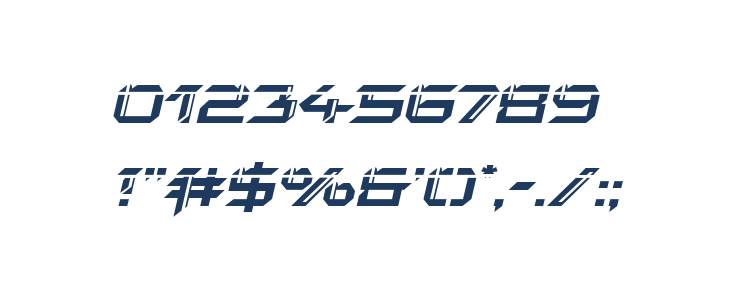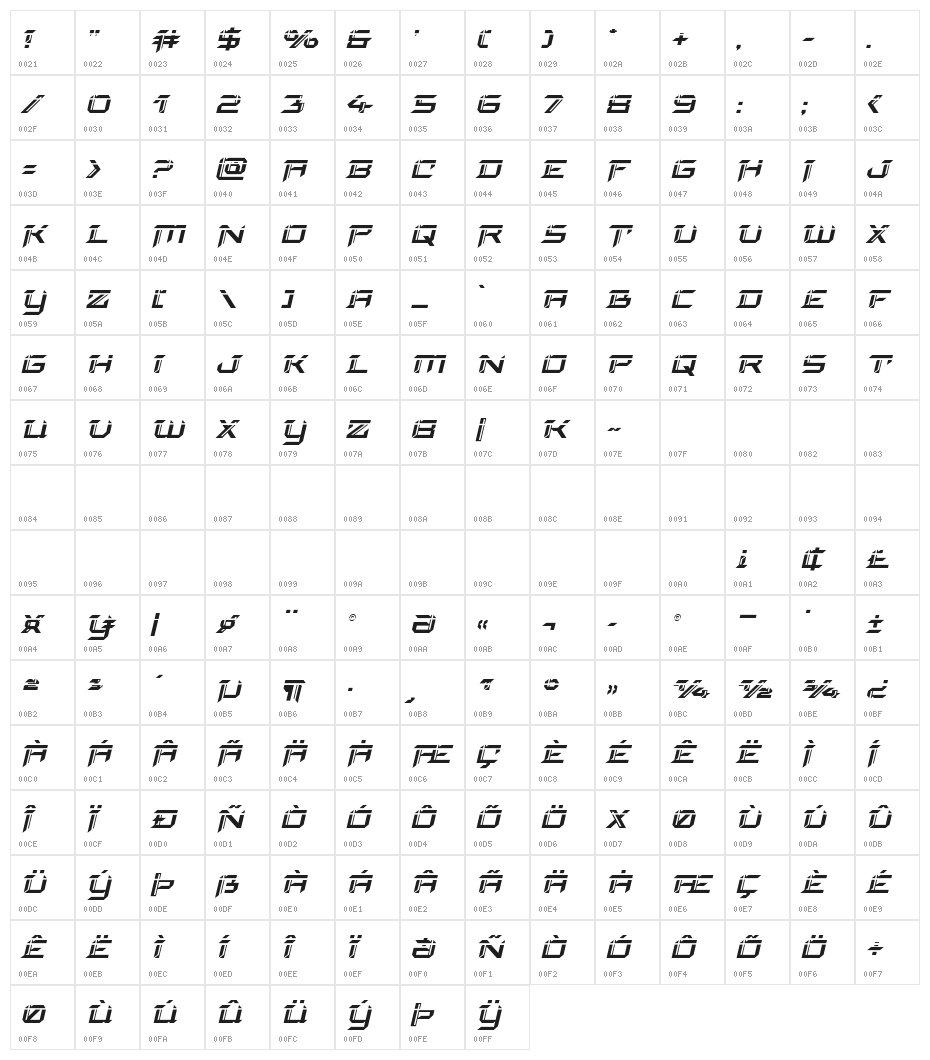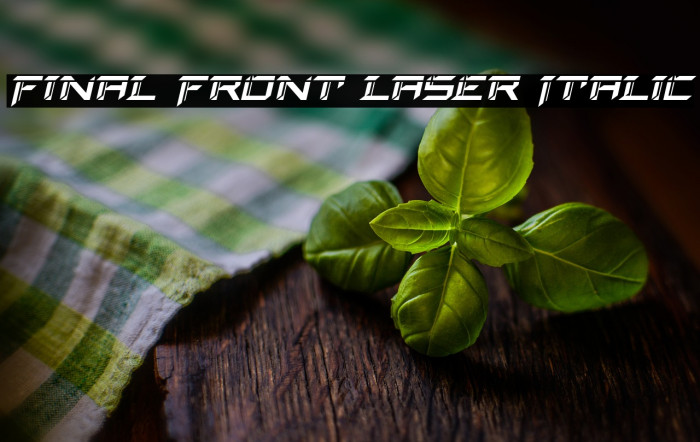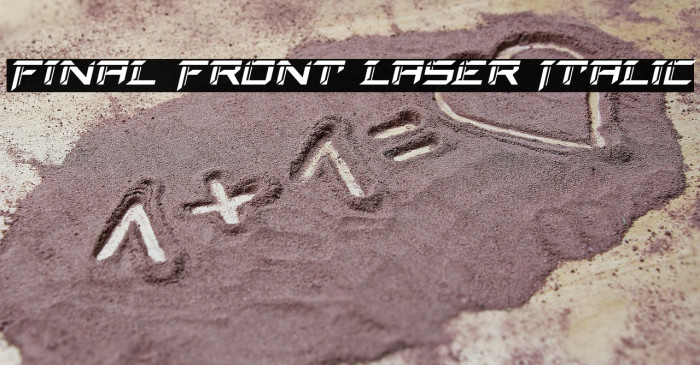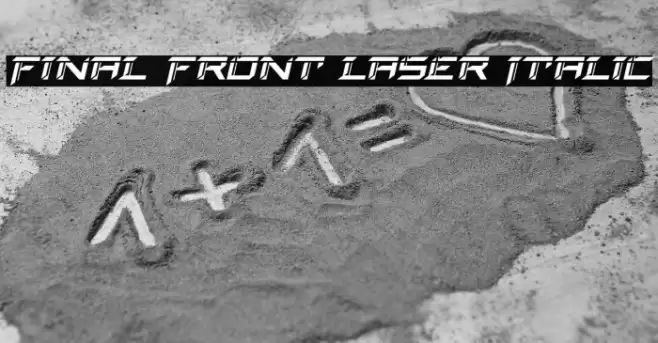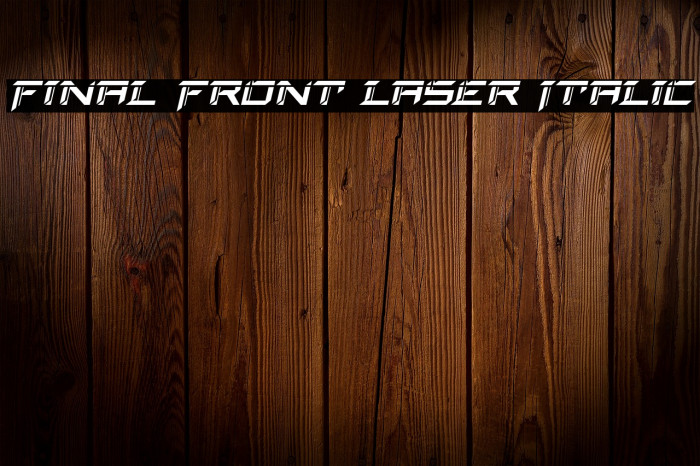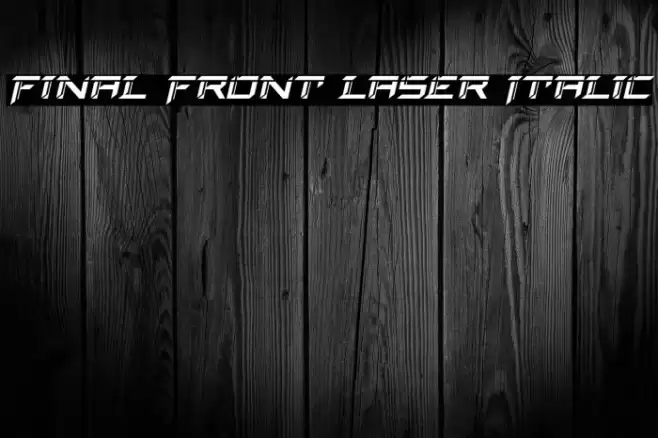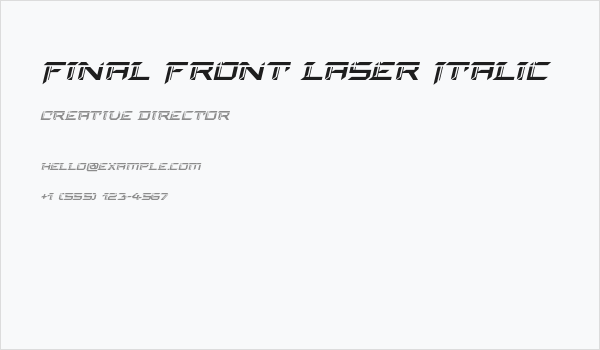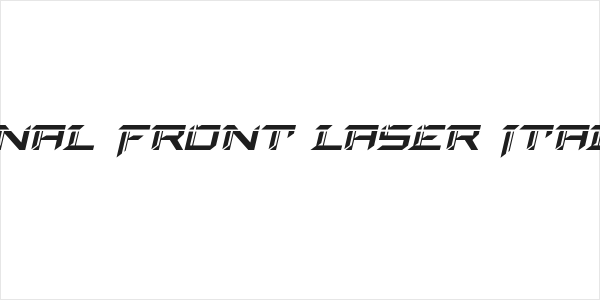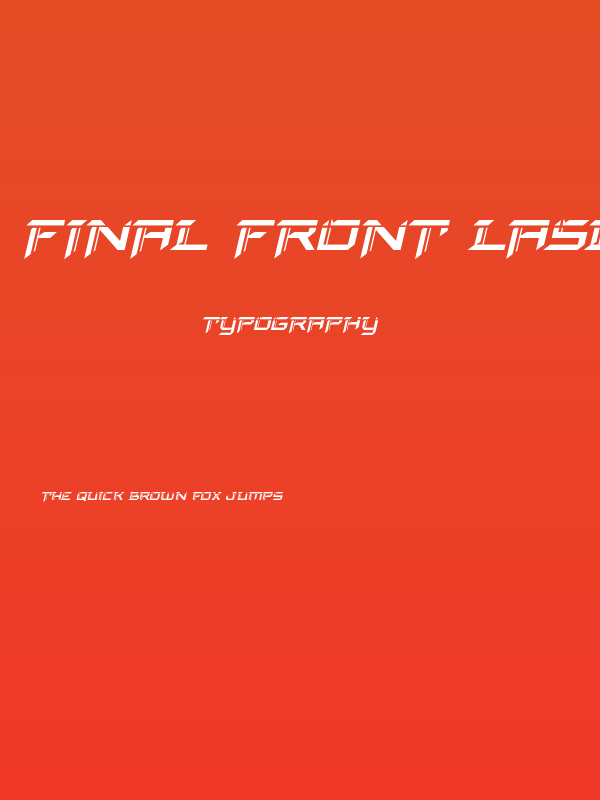
Final Front Laser Italic Font
Final Front Laser Italic Description
This font features a futuristic and dynamic design, characterized by sharp angles and a slanted, italicized style. The letterforms are bold and geometric, with a distinct cut-out effect that gives a sense of movement and speed. The uppercase and lowercase letters maintain a consistent style, with the uppercase being more prominent and the lowercase slightly more compact. Numbers and special characters follow the same angular and bold design, ensuring uniformity across all characters. The font's unique style makes it stand out, ideal for projects that require a modern and edgy look.
| Proposed Projects | Ideal for sci-fi themed projects, video game titles, technology branding, and dynamic posters. |